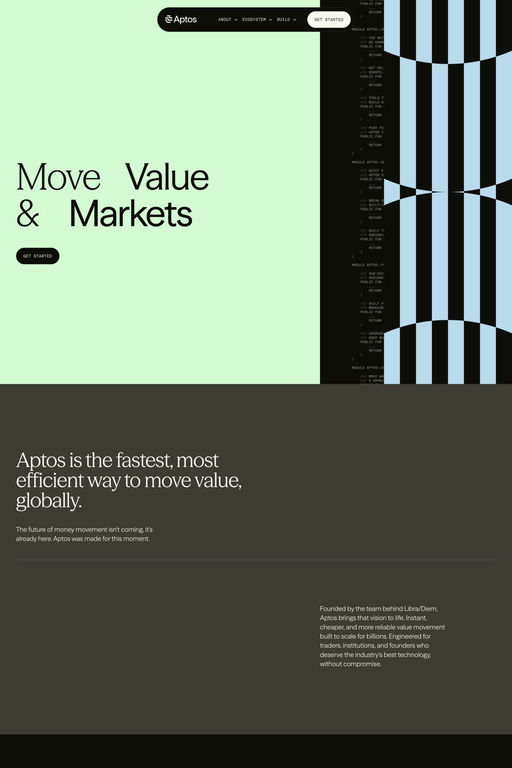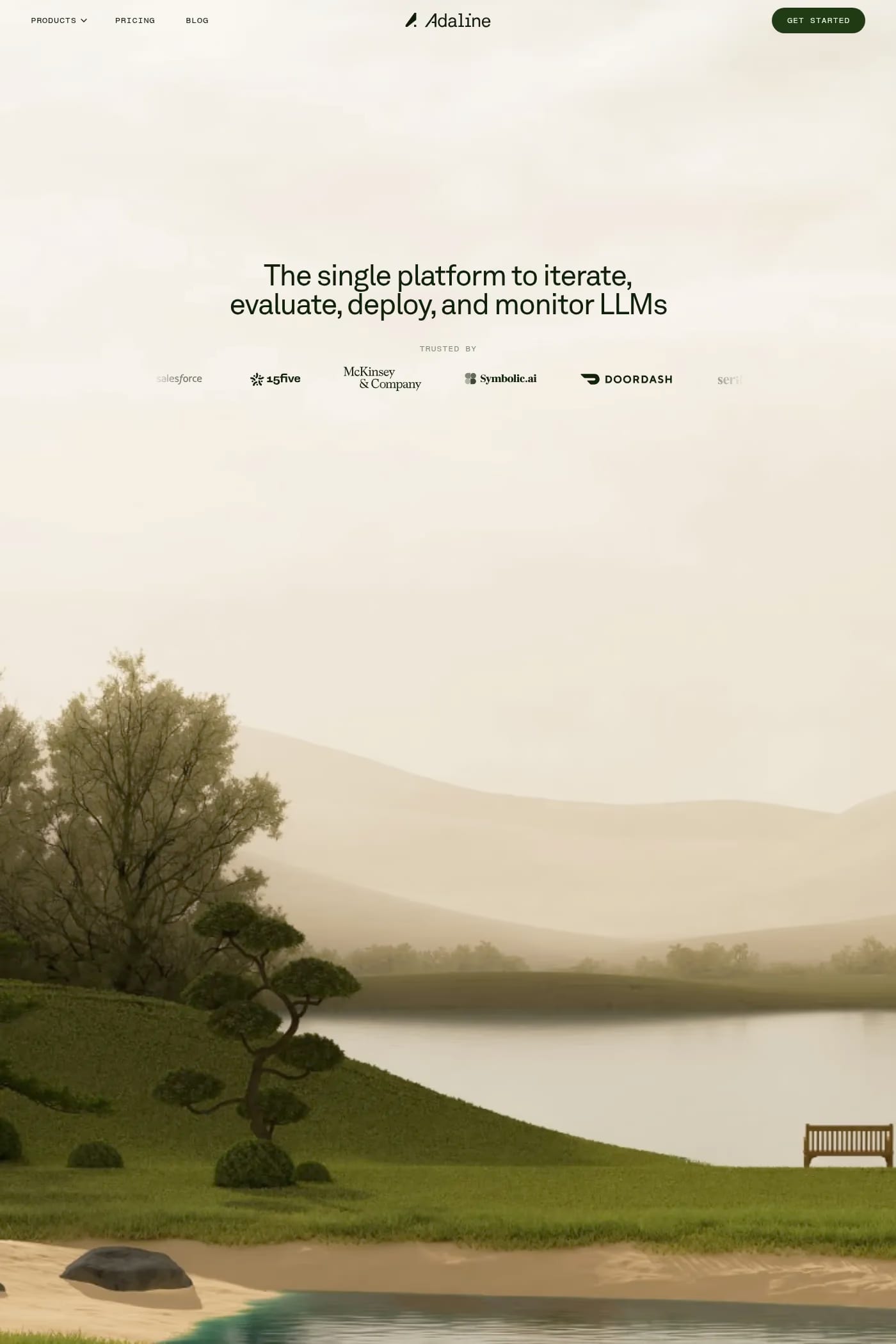
Akkurat is a sans-serif typeface from Lineto.
LL Akkurat was first released in April 2004, coinciding with the launch of Lineto’s new, groundbreaking website. Since then, Laurenz Brunner’s first typeface has been phenomenally successful – and also influential, as it became standard practice in contemporary type design to revisit neo-modernism in its various local idioms.